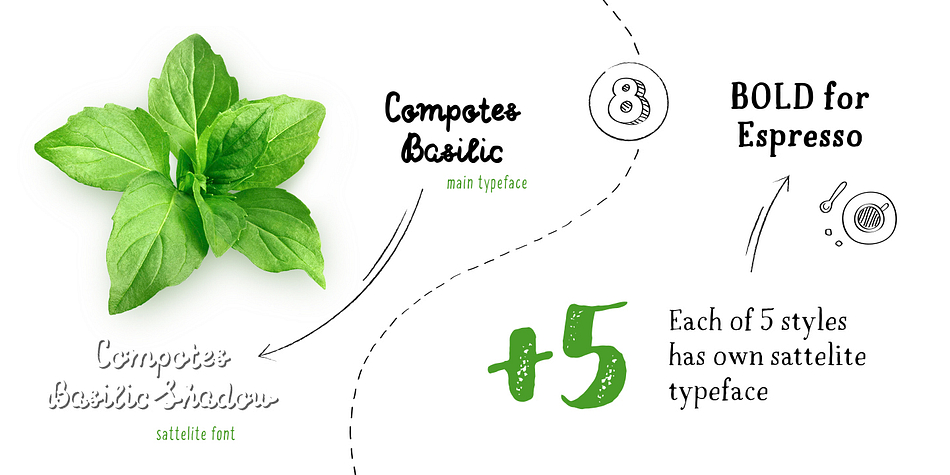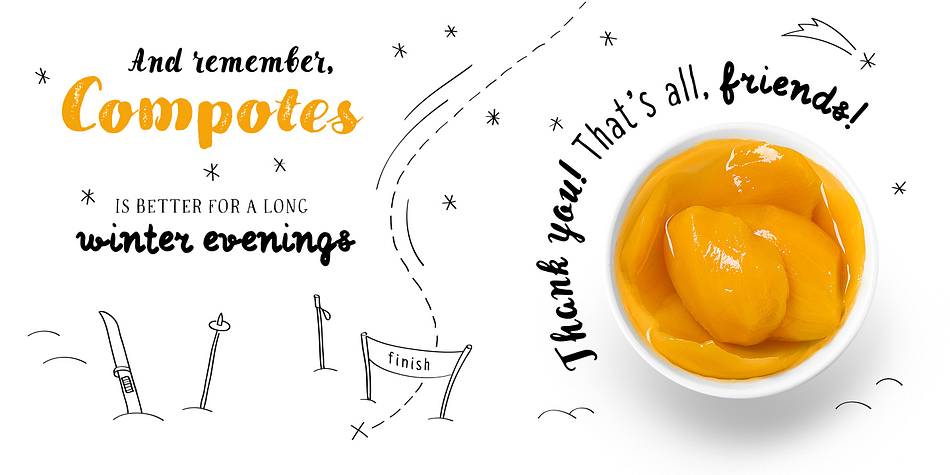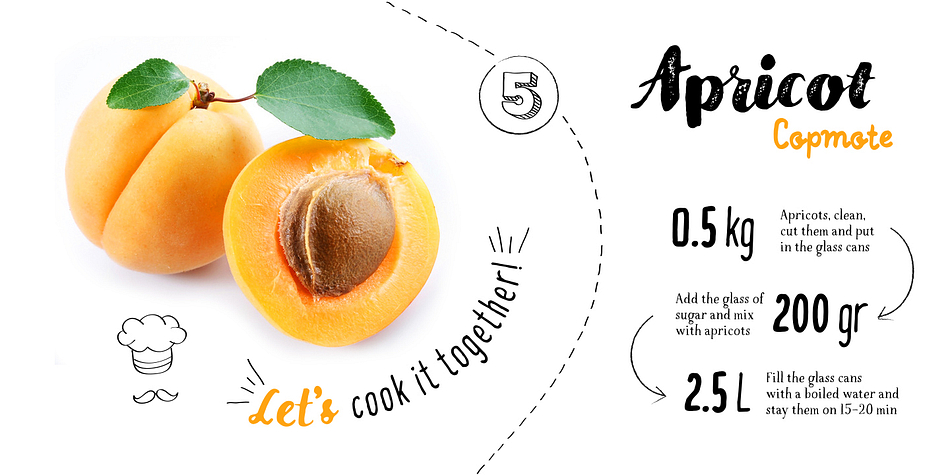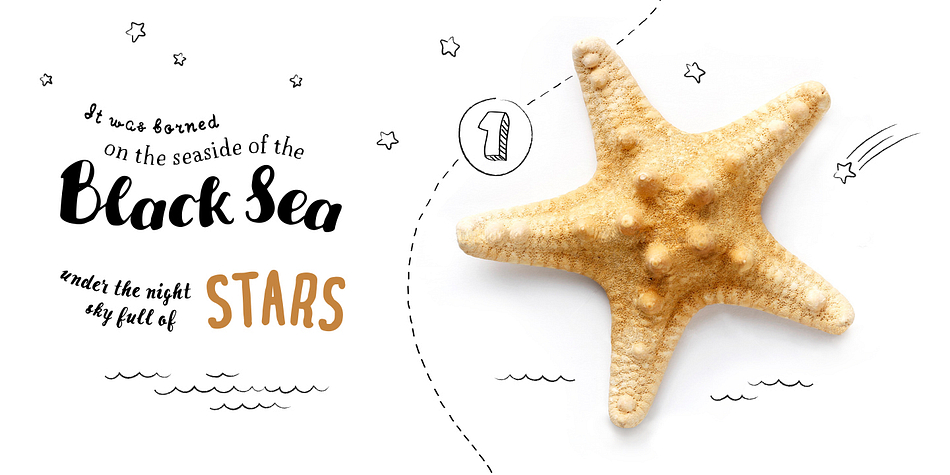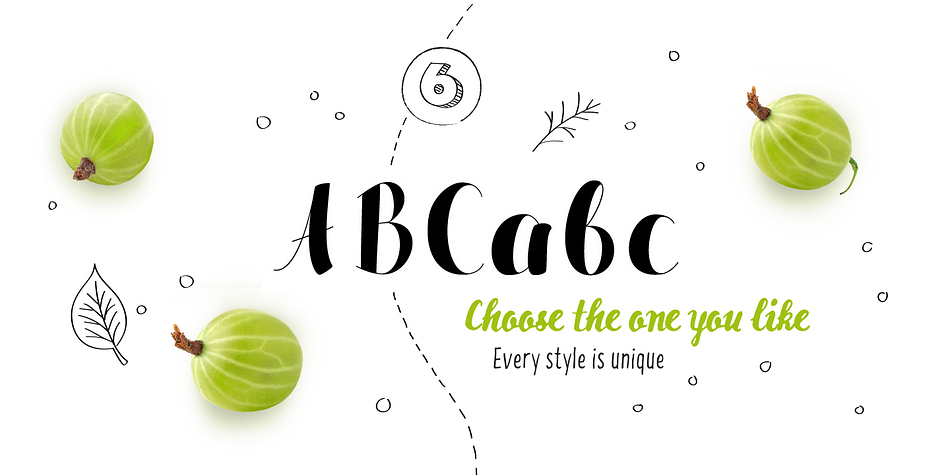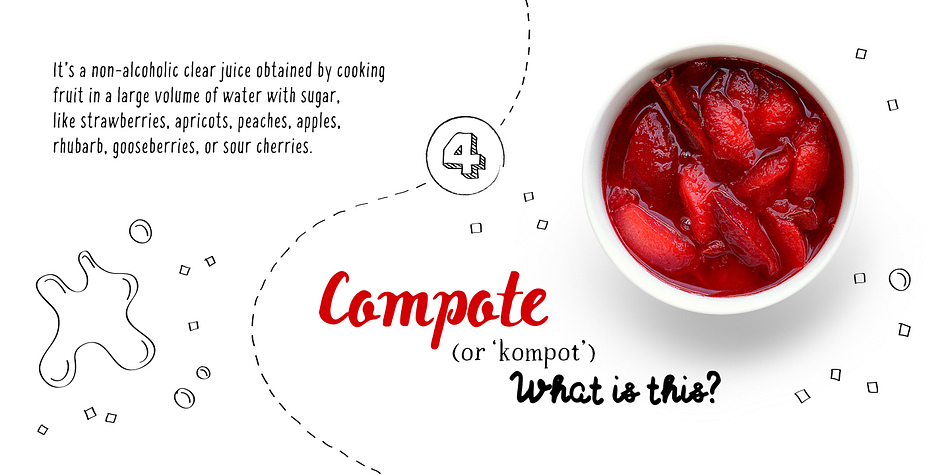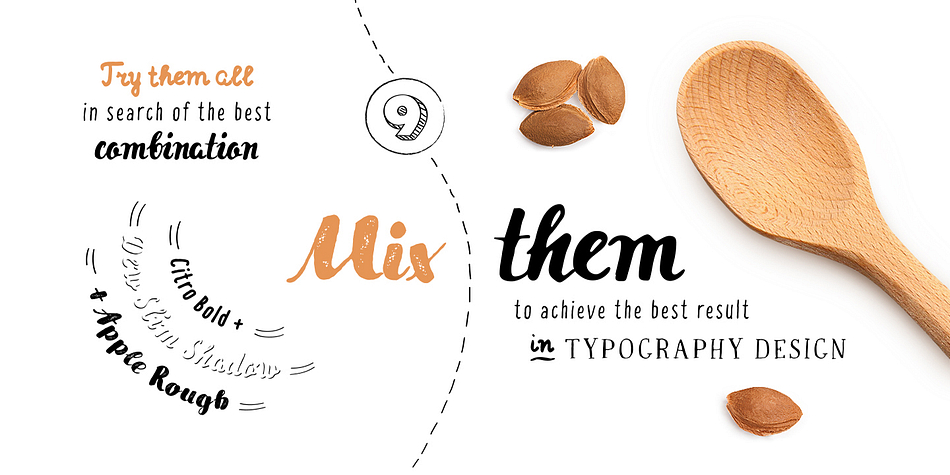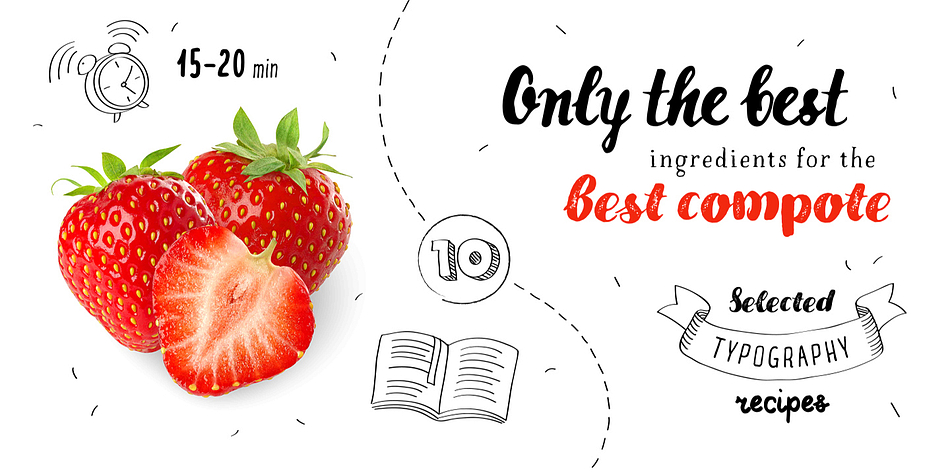
Designed by Ivan Gladkikh, Compotes is a multiple classification font family. This typeface has ten styles and was published by Pinata.
Compotes was created with love and with care about small collections of “hand-made” fonts. It’s the perfect product for the decoration of home design, small barber’s shops, cafes and bakeries.
These fonts are ideally combined with any type of design, for example, you can use them on labels for homemade jams and pickles and “Compotes”.
We did 5 main typefaces by alphabetical list:
A - Apple, B - Basilic, C - Citro, D - Dew, E - Espresso
In addition, we have developed five “supplements” for each font!